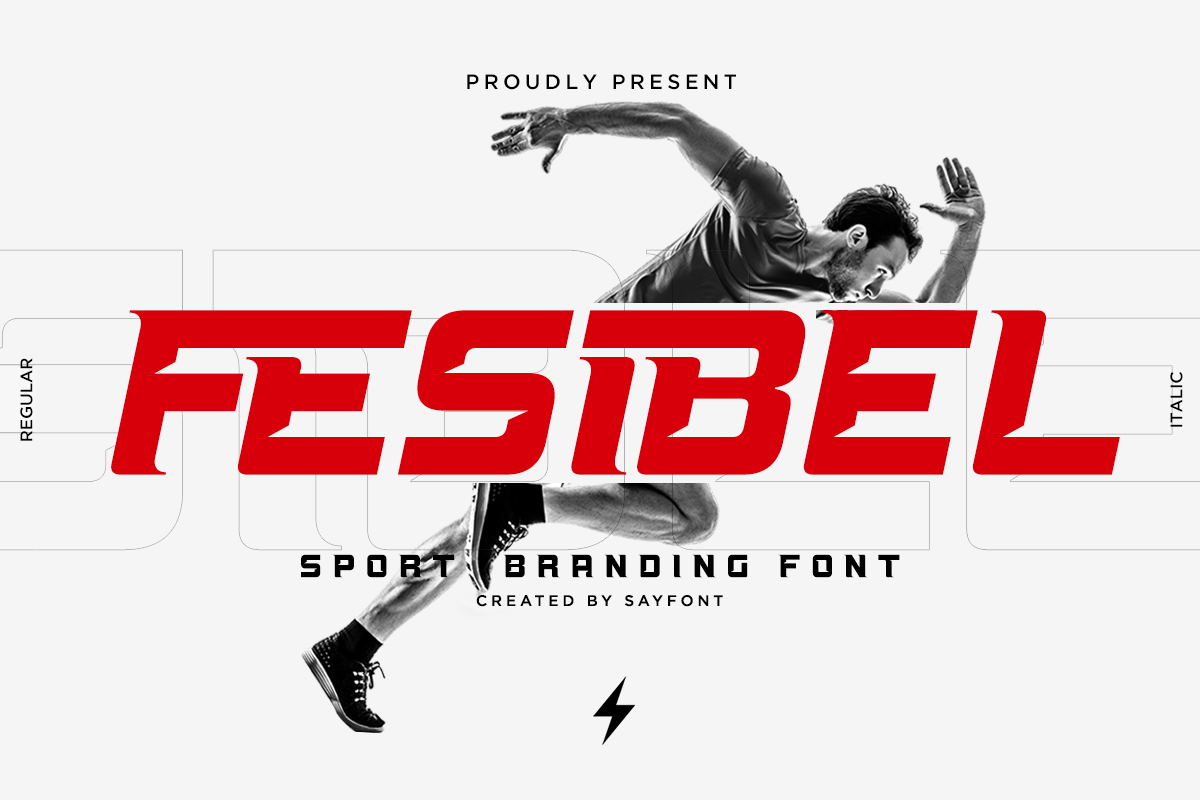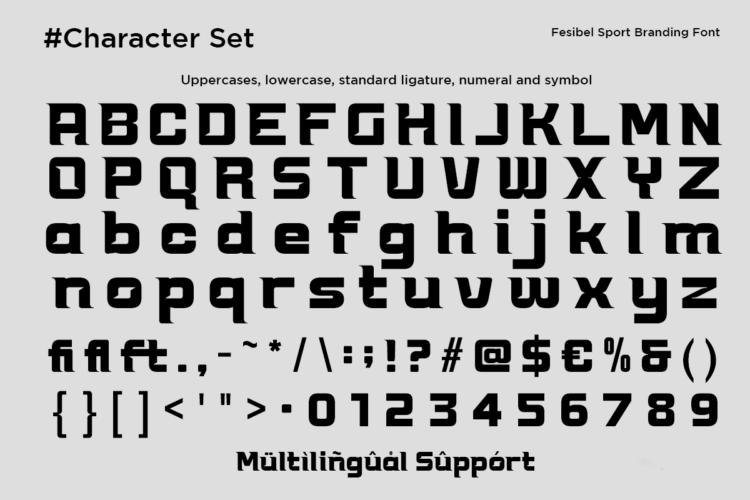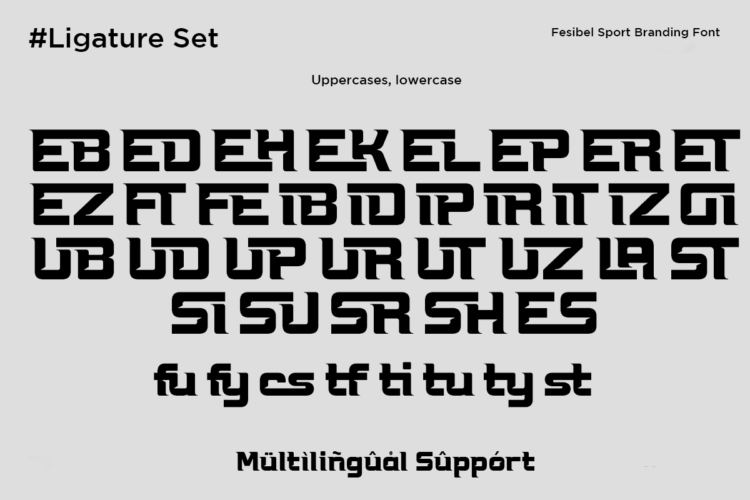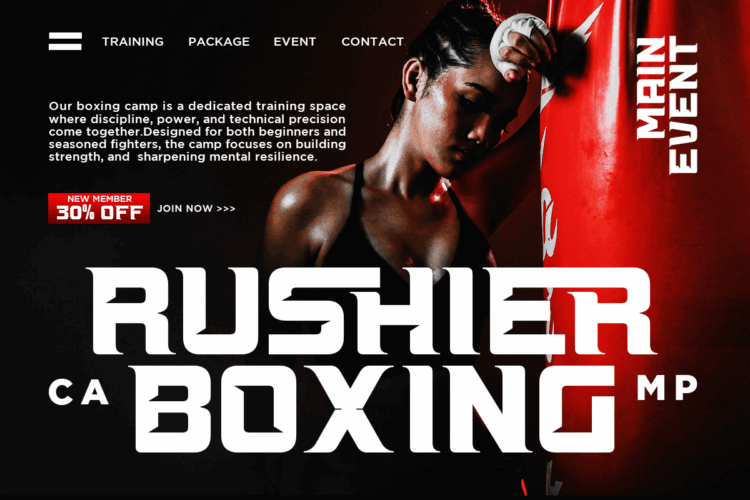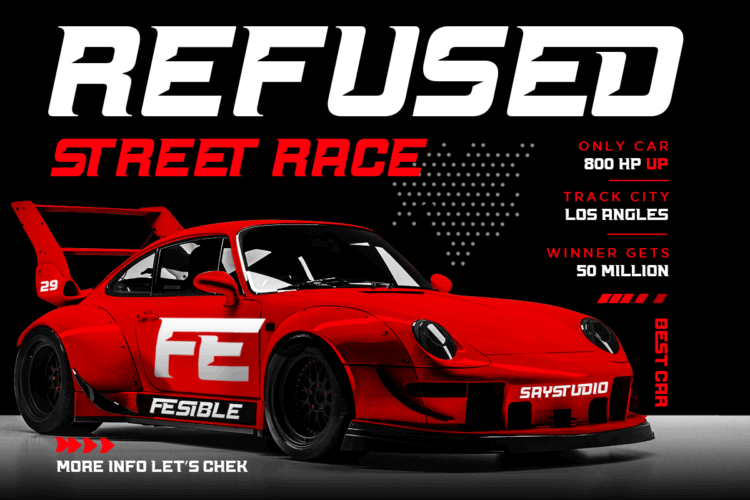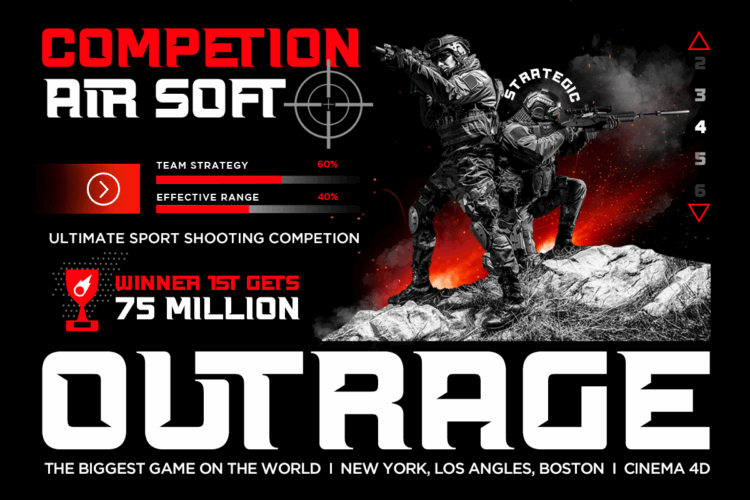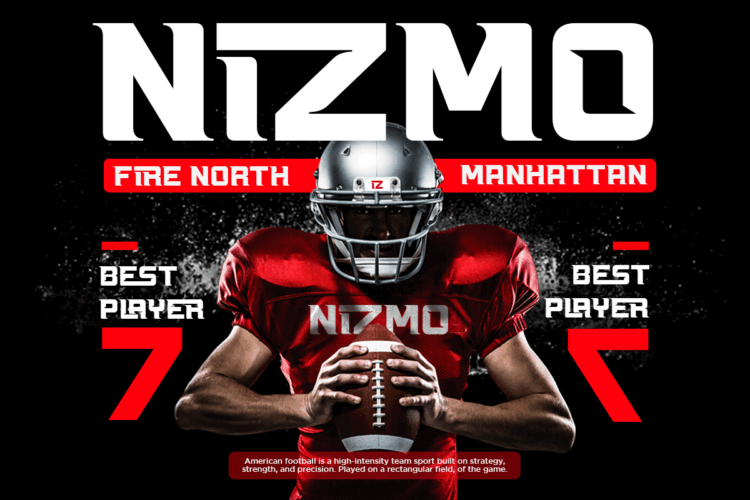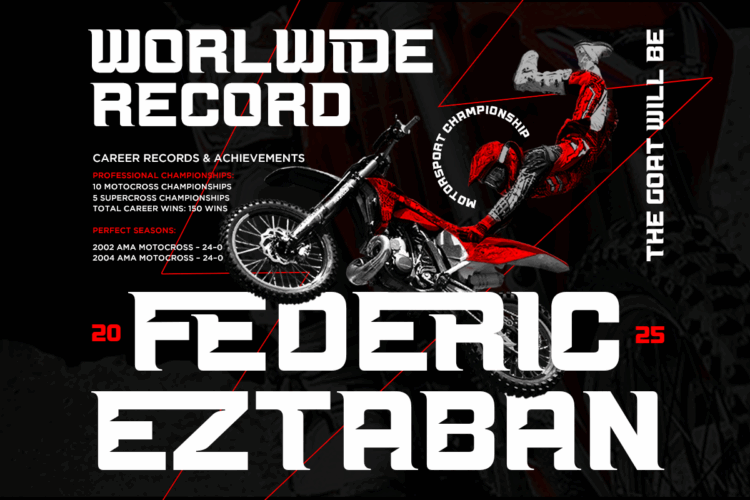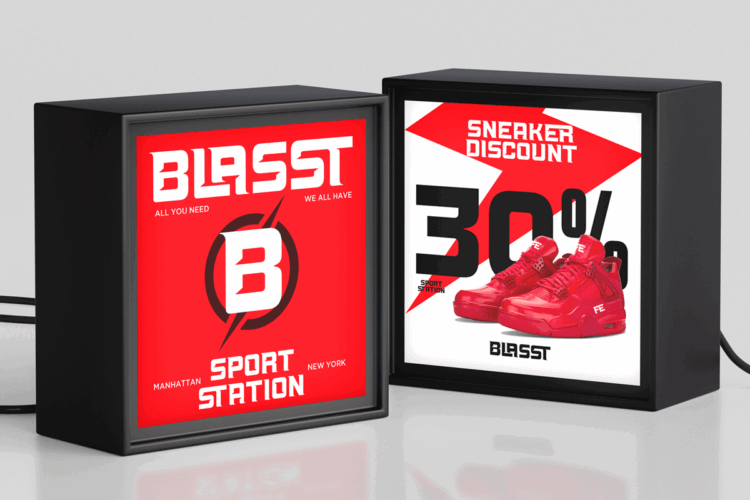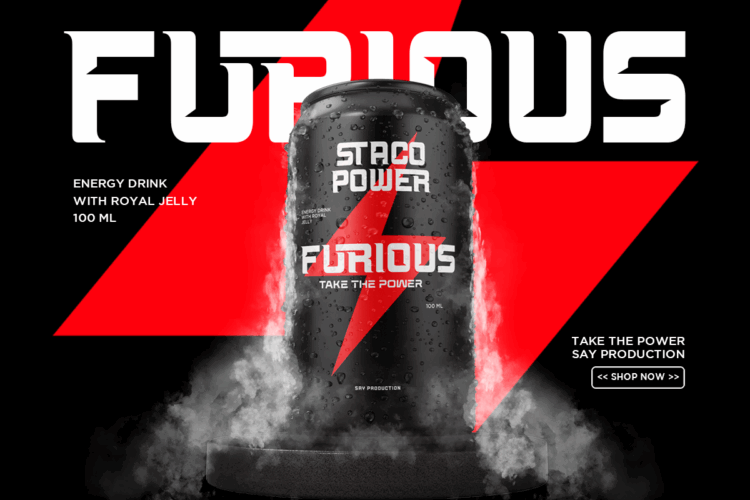
Fesibel – Sport Branding Font
Fesibel is a bold and dynamic sport display font designed for high-energy branding. Its sharp, fast, and italicized letterforms create a strong sense of motion—perfect for sports logos, racing titles, fitness promotions, esports visuals, and modern advertising. Available in Regular and Italic, Fesibel delivers a powerful, professional look for any action-driven design.
– Stylistic Ligatures